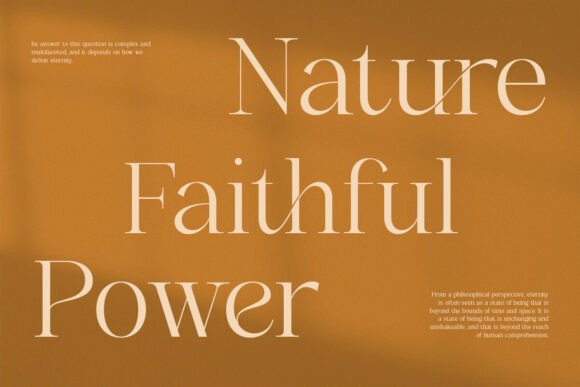
Caster Font: Elevate Your Designs with Modern Chic Serif
In the world of graphic design, typography plays a crucial role in conveying the message and aesthetic of a project. A well-chosen font can elevate your design, making it more engaging, luxurious, and elegant. Introducing the Caster Modern Chic Serif, a font designed to take your designs to the next level. This stunning font is not just about style; it’s about making your designs shine with sophistication and refinement.
Key Features of Caster Font
- Sleek Alternates: Caster font comes with sleek alternates that provide a fresh and modern twist to your designs. These alternates allow you to experiment with different styles, ensuring your project stands out from the crowd.
- Graceful Ligatures: The font features elegant ligatures that add a touch of sophistication to your designs. Ligatures are essential in creating a seamless and luxurious look, making Caster perfect for high-end projects.
- Multilingual Support: Caster is designed to be multilingual-friendly, supporting various languages and scripts. This feature ensures that your designs can reach a broader audience, regardless of the language or region.
Endless Design Possibilities with Caster
Caster Modern Chic Serif is an incredibly versatile font, suitable for a wide range of design applications. Here are some ideas to get you started:
- Logo Design: Create a lasting impression with a custom logo that exudes luxury and sophistication. Caster’s sleek alternates and elegant ligatures make it perfect for crafting a unique and memorable brand identity.
- Poster Design: Make a statement with a stunning poster that showcases your creativity. Caster’s modern chic serif style ensures your poster will stand out, whether you’re promoting an event, product, or service.
- Web Design: Elevate your website’s typography with Caster, creating a seamless and engaging user experience. The font’s cross-platform compatibility and multilingual support make it an excellent choice for global brands and businesses.
- Glyphs: Caster includes a range of glyphs, including alternates, ligatures, and diacritical marks.
Why Choose Caster Font?
Caster Modern Chic Serif offers numerous benefits that make it an excellent addition to your design arsenal:
- Elegance and Sophistication: Caster adds a touch of luxury and refinement to your designs, making them more engaging and memorable.
- Versatility: The font’s versatility ensures it can be used across various design applications, from logos and posters to websites and more.
- Technical Convenience: Caster’s cross-platform compatibility and multilingual support eliminate technical headaches, allowing you to focus on your creative vision.
In conclusion, Caster Modern Chic Serif is an exceptional font that can elevate your designs to new heights. With its sleek alternates, elegant ligatures, and multilingual support, Caster is the perfect choice for designers seeking to create luxurious and engaging projects. Say goodbye to mediocre typography and hello to a world of creative possibilities with Caster.